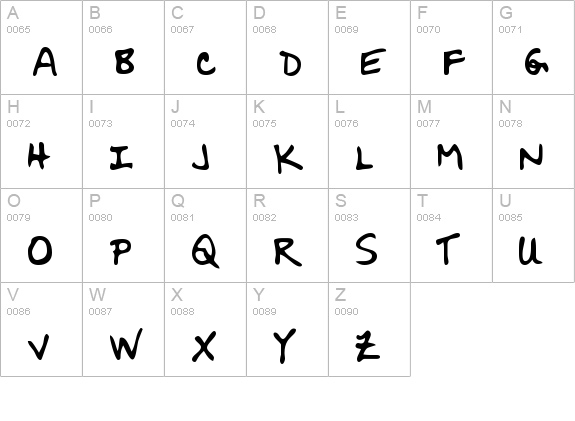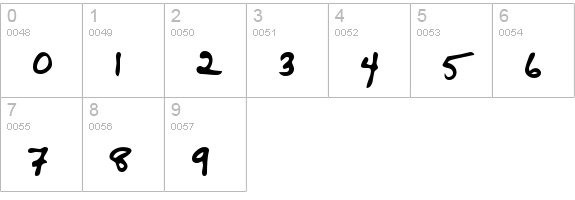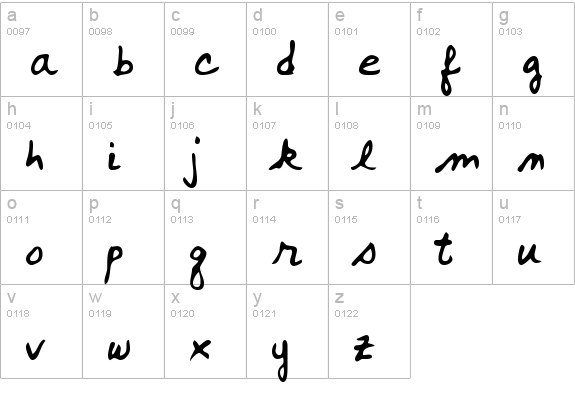
LeonardsHand Regular Font Details
LeonardsHand Regular is the standard, neutral variant in the LeonardsHand typeface family \xE2\x80\x94 well suited to general body text, paragraphs, and standard typographic work.
Introducing LeonardsHand Regular, a captivating font that effortlessly combines elegance with a touch of playfulness. This versatile typeface is perfect for adding a unique and personal touch to any creative project. With its carefully crafted curves and fluid strokes, LeonardsHand Regular exudes a sense of graceful movement that captures attention and sparks imagination. What sets LeonardsHand Regular apart is not only its aesthetic appeal but also its accessibility. This incredible font is freely available to download at FontsMarket.com, making it easily accessible to designers, artists, and enthusiasts alike. Whether you're working on a logo, branding, invitations, or any other design project, LeonardsHand Regular offers an extensive range of characters and ligatures, allowing you to create stunning and eye-catching visuals. With its smooth and legible letterforms, LeonardsHand Regular ensures a seamless reading experience across various mediums, from print to digital. Its versatility makes it suitable for a wide range of applications, from headline titles to body text, offering endless possibilities for your design needs. Whether you're aiming for a sophisticated and refined look or a more whimsical and casual style, LeonardsHand Regular adapts effortlessly to your creative vision. Unleash your creativity and elevate your designs with the enchanting beauty of LeonardsHand Regular. Download this exceptional font today at FontsMarket.com and unlock a world of captivating possibilities. Harness the power of this freely accessible font and let your ideas flourish with its charm and versatility.